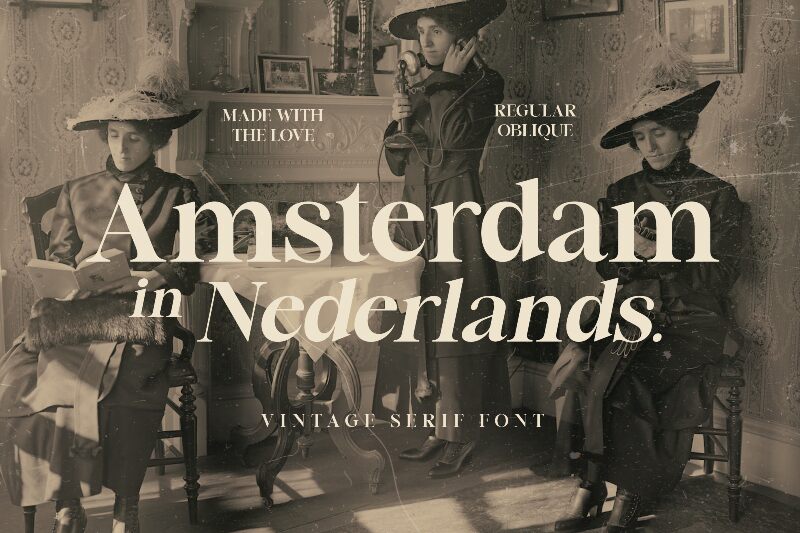
Amsterdam Serif font is a lovely creation from Lettersiro Studio. The elegant, classic style with a modern twist is immediately visible; it truly stands out and calls attention. The proper term would be a minimalist design style that gives associations to fashion, art, photography, and high-quality goods.
Use the versatile free serif font for various applications including branding, logos, product labeling & packaging as well as magazines and books. Explore apparel items ideas or use them on websites or social media designs.
AMSTERDAM SERIF